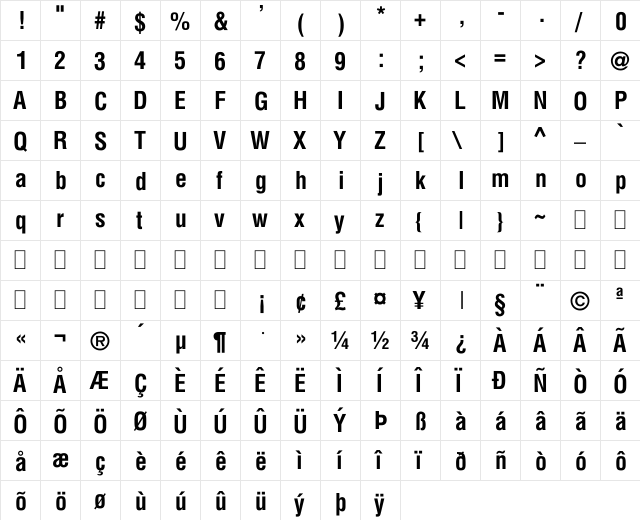
BD Hanover Regular
Design Context for BD Hanover Typeface
BD Hanover is a composed and adaptable typeface that performs quietly and consistently across a wide range of design contexts. Its bold stroke weight gives it real presence on the page.